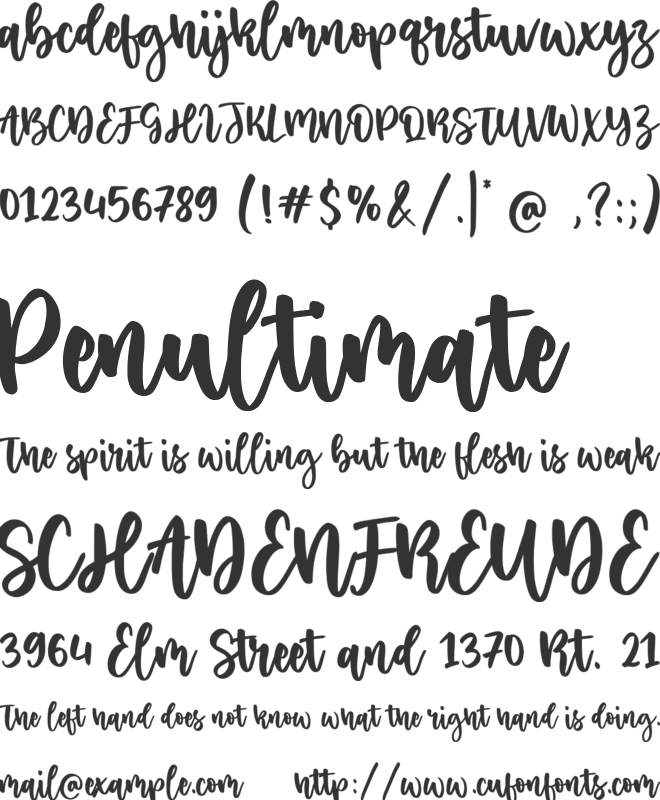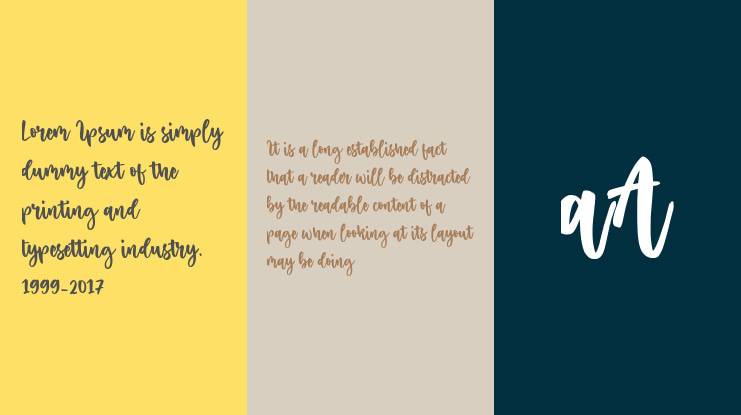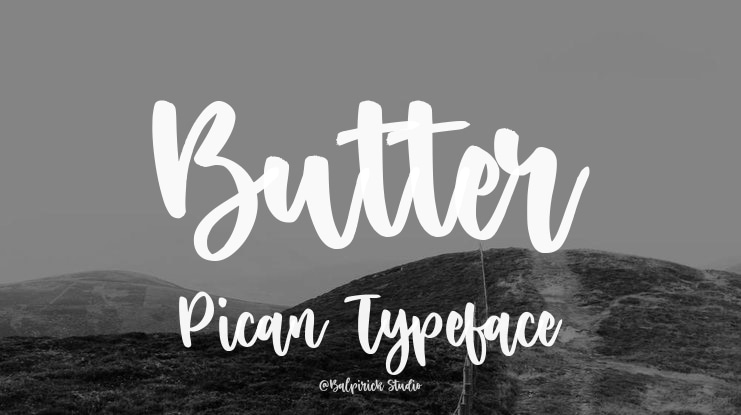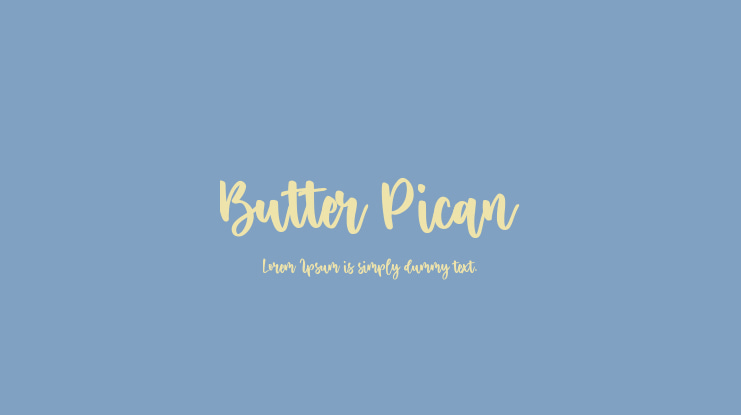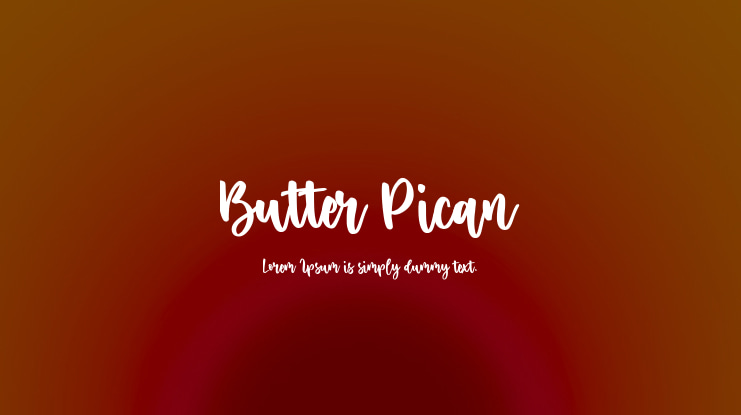
Butter Pican Font
Butter Pican is a Handbrushed Font that's perfect for adding a personal touch to your design projects! With its natural, organic feel and unique character.
Crafted with care and attention to detail, this font is incredibly versatile and can be used for a range of design projects, including logos, branding, invitations, and more. Its modern, handwritten style gives it a unique character that's sure to make an impact.
- also multilingual support